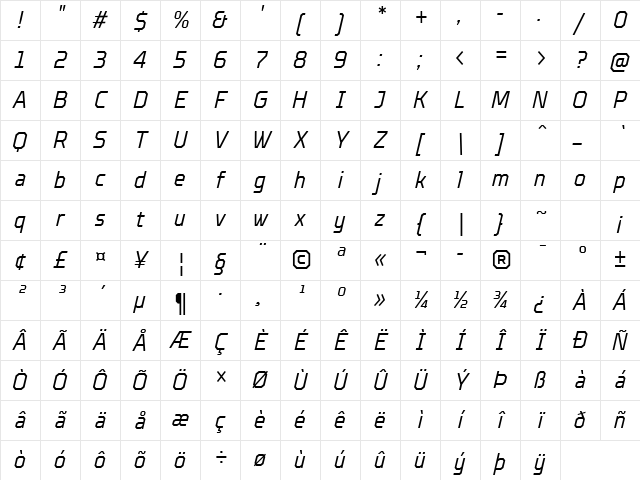
Complete TT Octosquares Trl Cnd Lt It glyph index. Displaying only characters natively supported by TT Octosquares Trl Cnd Lt It font.
TT Octosquares Trl Cnd is a composed and adaptable typeface that performs quietly and consistently across a wide range of design contexts. Its slender proportions lend an understated elegance to any composition.